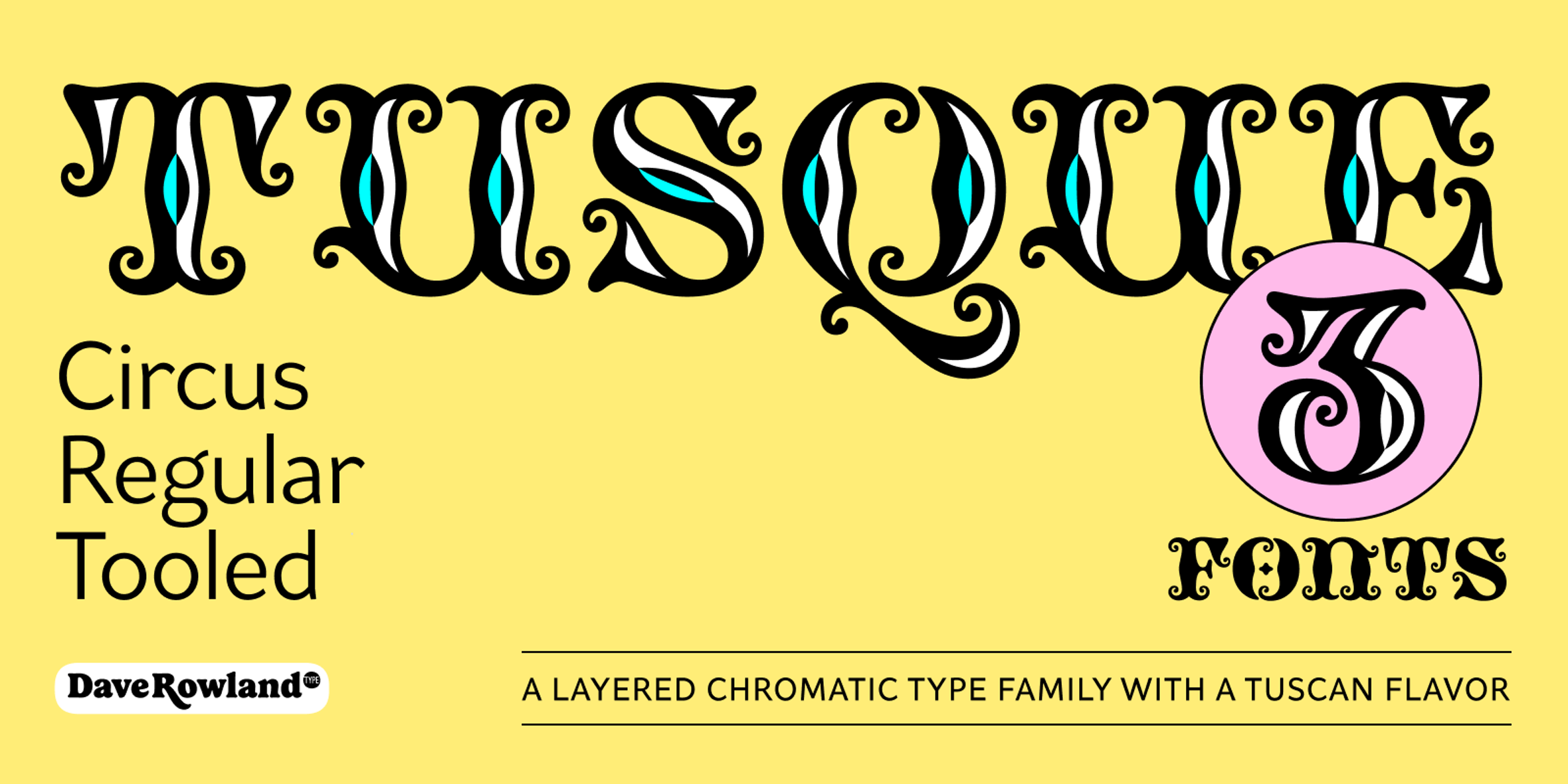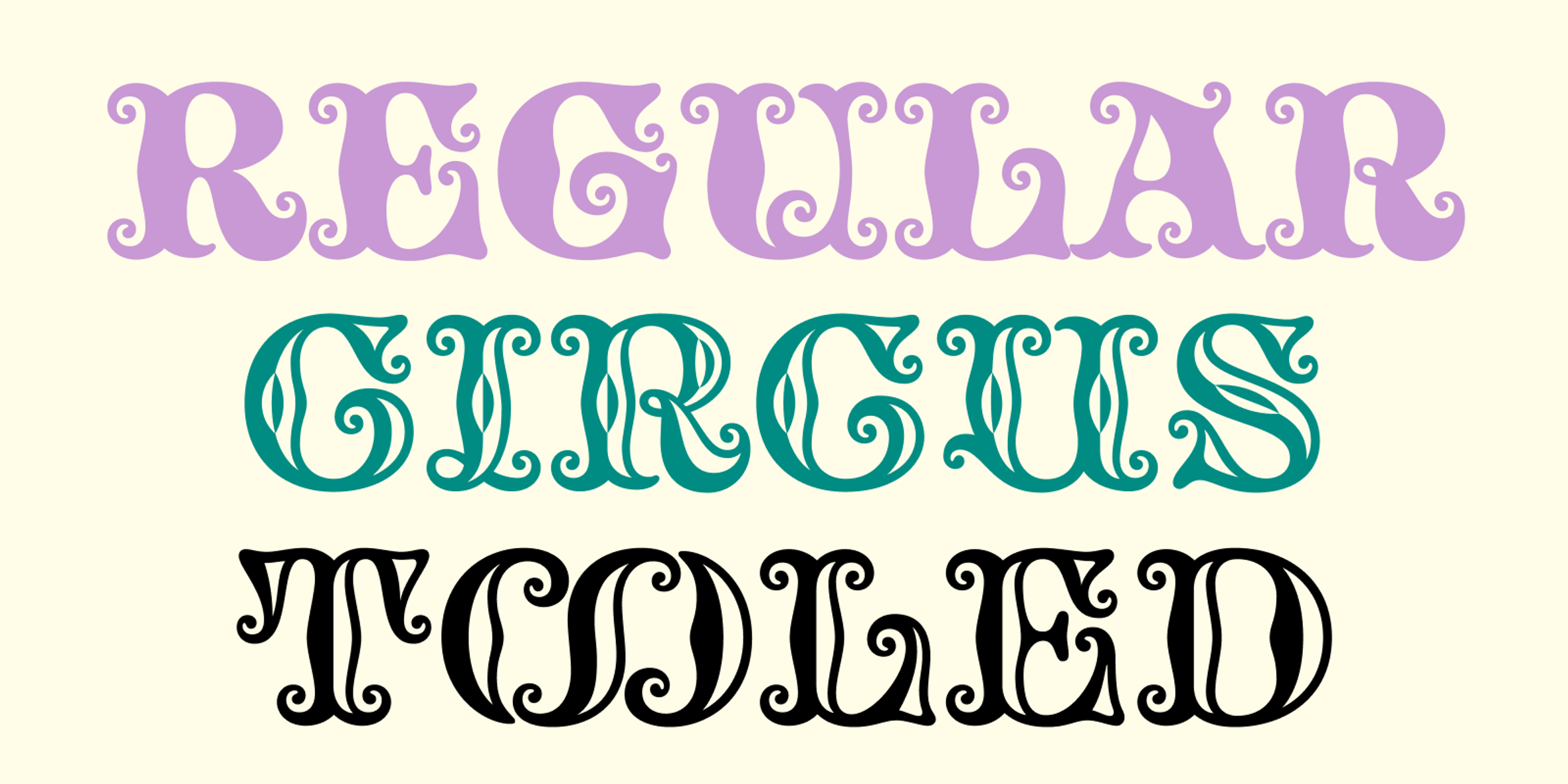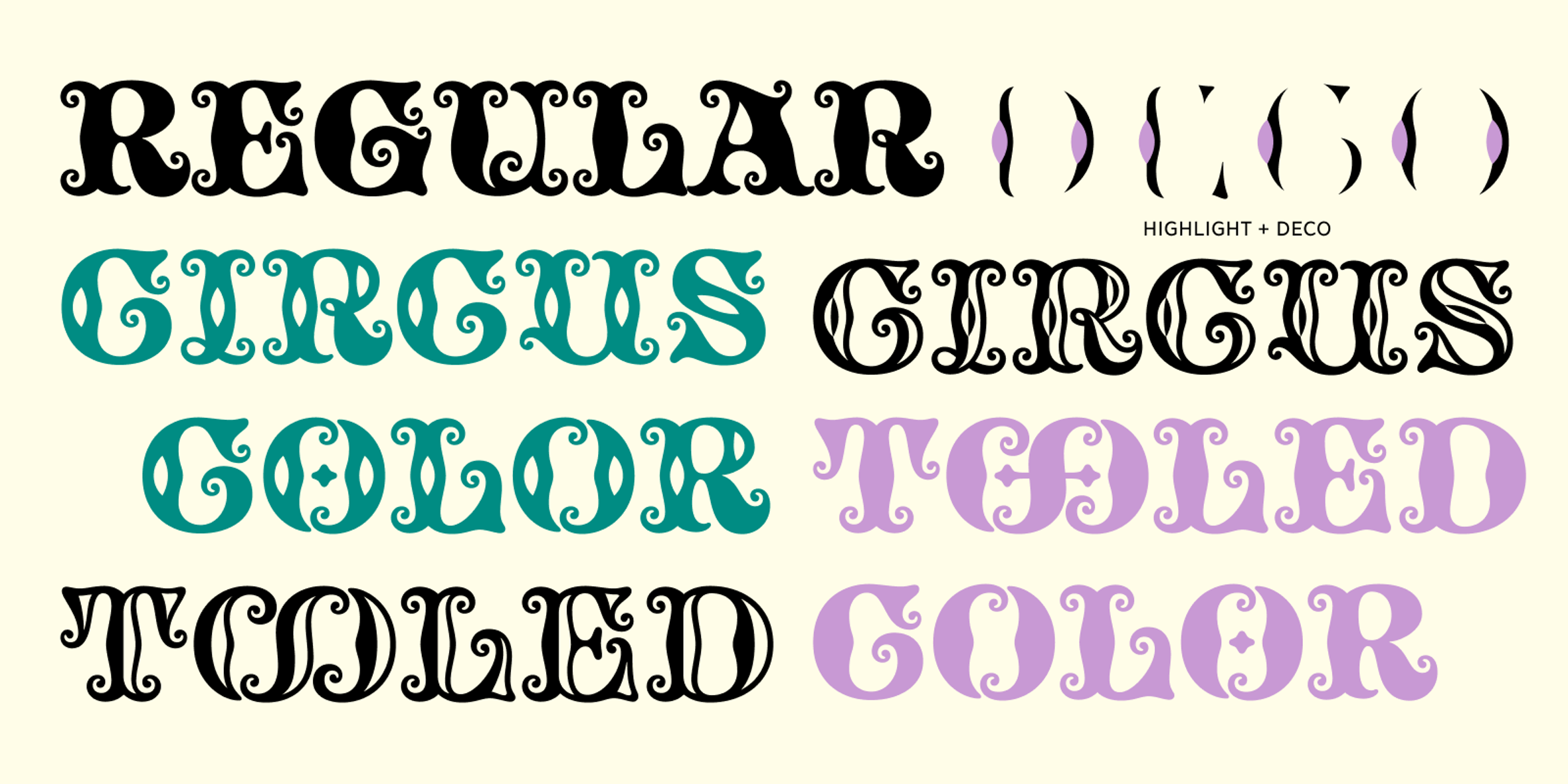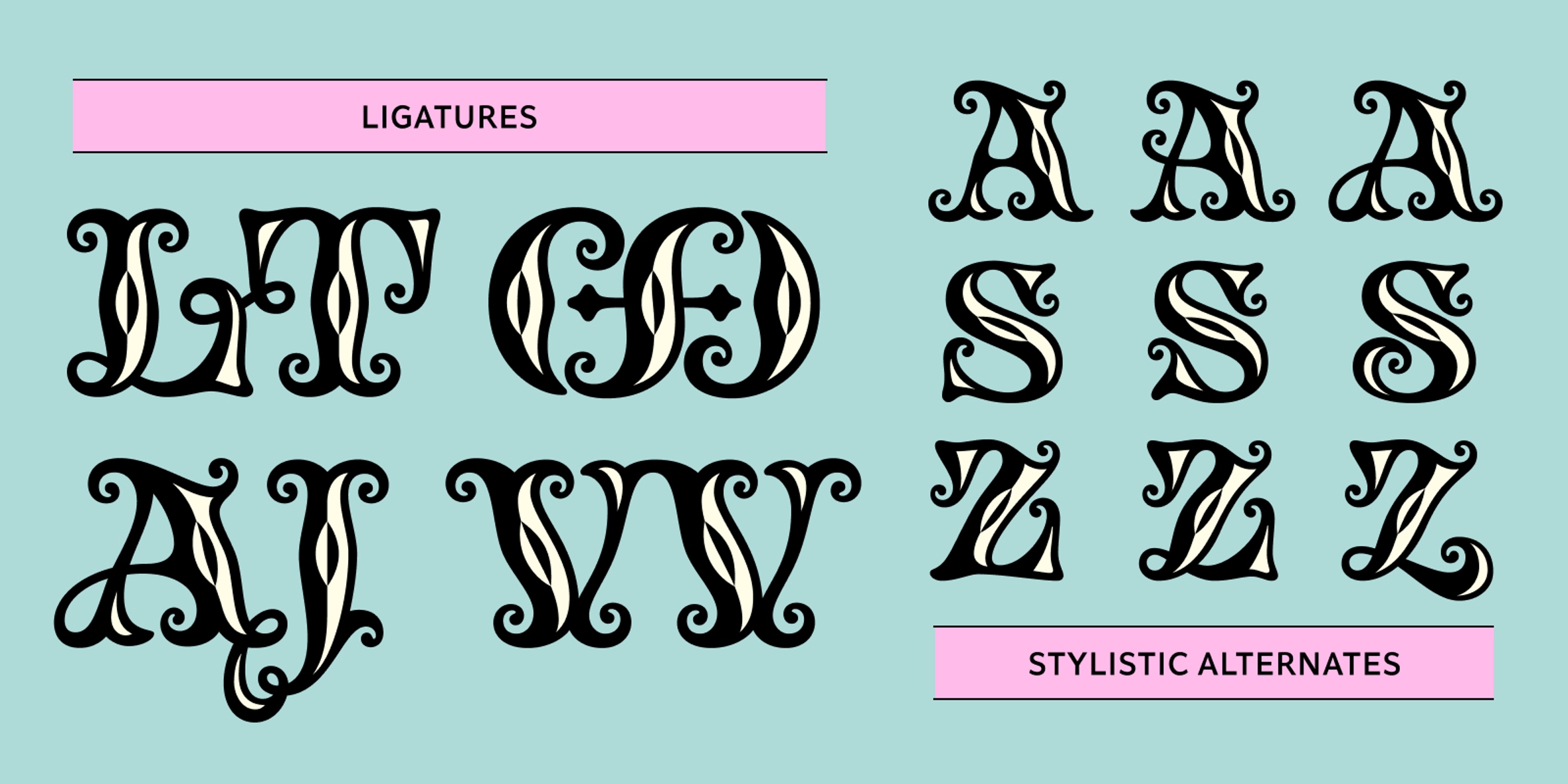
Tusque Fonts
Tusque Styles
Tusque Circus Color
Tusque Tooled Color
Tusque Circus
Tusque Deco
Tusque Highlight
Tusque Regular
Tusque Tooled
Tusque
Tusque is a chromatic family with a Tuscan flavor. Regular, Circus, and Tooled can stand alone, while Highlight and Deco are purely for multi-colored fun. Tusque lends itself to fairy tales, wine labels, and boutique logos. Although all caps, the lower case slots differ from the upper case, so you can mix and match! There are also a bevy of swash alternates and ligatures at your disposal. The contextual alternates feature clever alternates for glyphs like A and V to give a better fit.